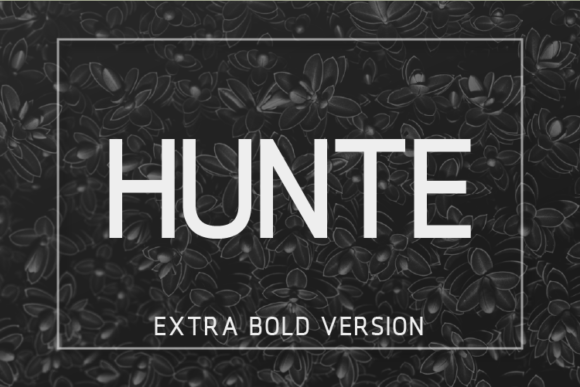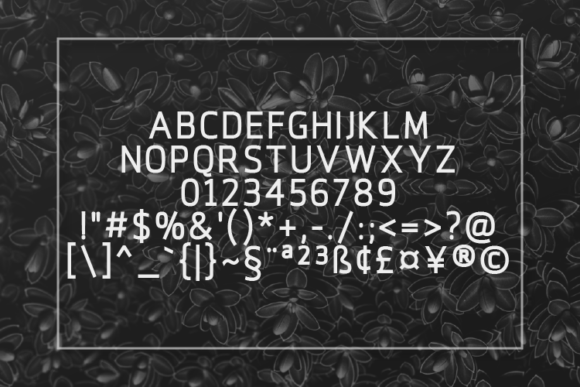
HomeSans Serif FontsHunte Extra Bold Font Sans Serif Fonts Hunte Extra Bold Font FacebookTwitterPinterestWhatsApp Hunte Extra Bold Font 1 of 2 About Hunte Extra Bold Font The absence of terminals gives Hunte a clean and geometric look, while keeping its essence and structure! It’s an ideal font for publishing, titles, books, magazines and corporate design. DOWNLOAD NOW People also explored Always Sanguine Font Dayflower Font Sansational Hillpark Script Font Gumanti Font Surprise Font Bladis Font Symphony Font Bellesa Font 281 0 TagsHunte Extra Bold Font Previous articleHunte Black FontNext articleHunte Bold Font LEAVE A REPLY Cancel reply Comment: Please enter your comment! Name:* Please enter your name here Email:* You have entered an incorrect email address! Please enter your email address here Website: Save my name, email, and website in this browser for the next time I comment. Personal Use Free Batik Classic Personal Use Free Read more about this font Deling Personal Use Free Read more about this font Party Pooper Personal Use Free Read more about this font Hiters Personal Use Free Read more about this font BLOG Free vs Paid Fonts: Why Investing in Premium Fonts Is Worth It Free vs Paid Fonts: Why Premium Fonts Are Worth It in 2025 The debate of free vs paid fonts continues in the design world. While... Best Fonts for T-Shirt Design – Top 2025 Picks Using Fonts in Digital Marketing: Tips to Strengthen Your Brand Identity To increase your work productivity, choose the most readable fonts.